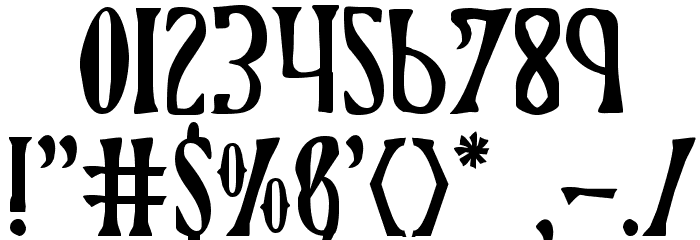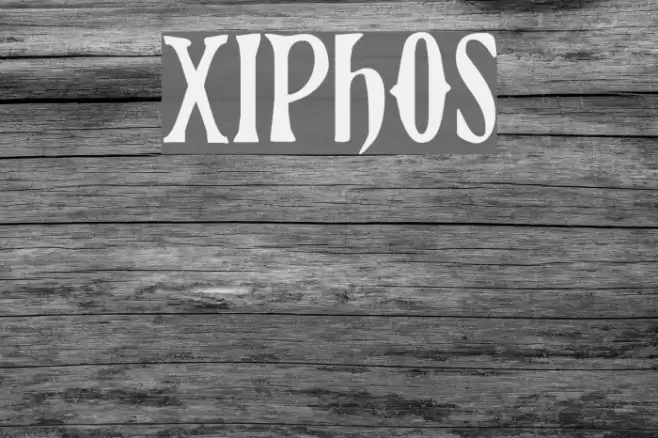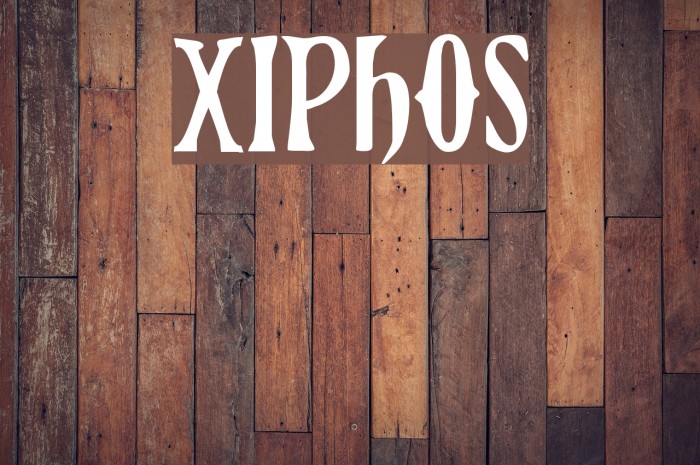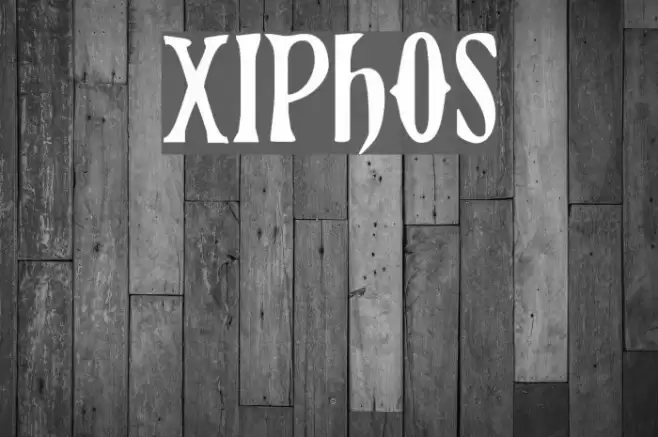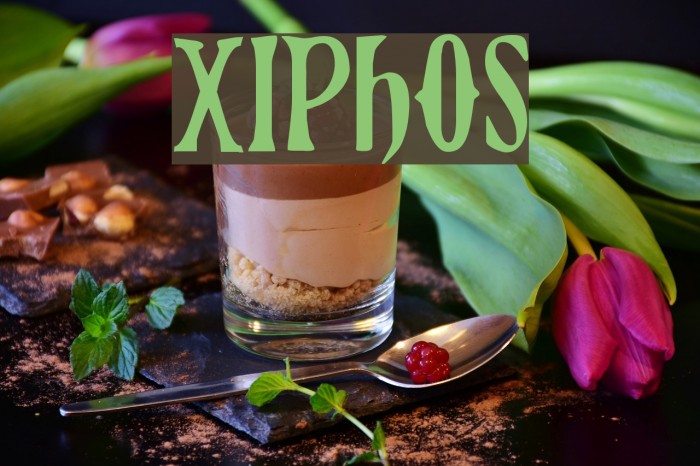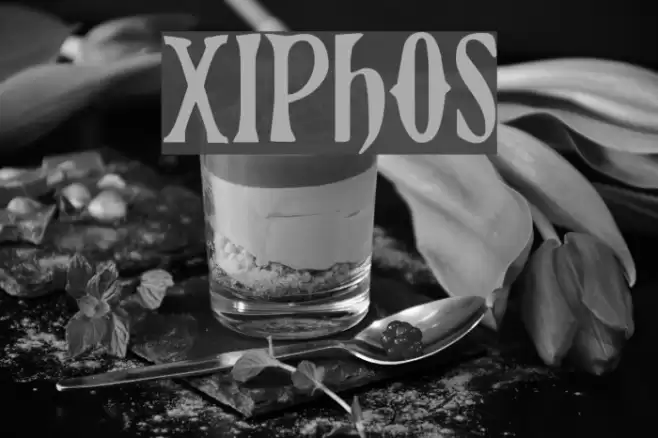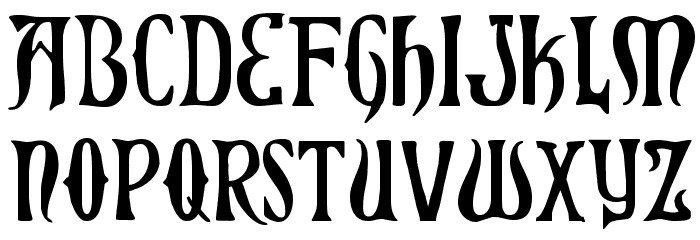
Xiphos Font
| 全体的なスタイル | Gothic, Dramatic |
| おすすめプロジェクト | Ideal for use in fantasy-themed designs, book covers, movie posters, and branding that requires a strong, dramatic presence. |